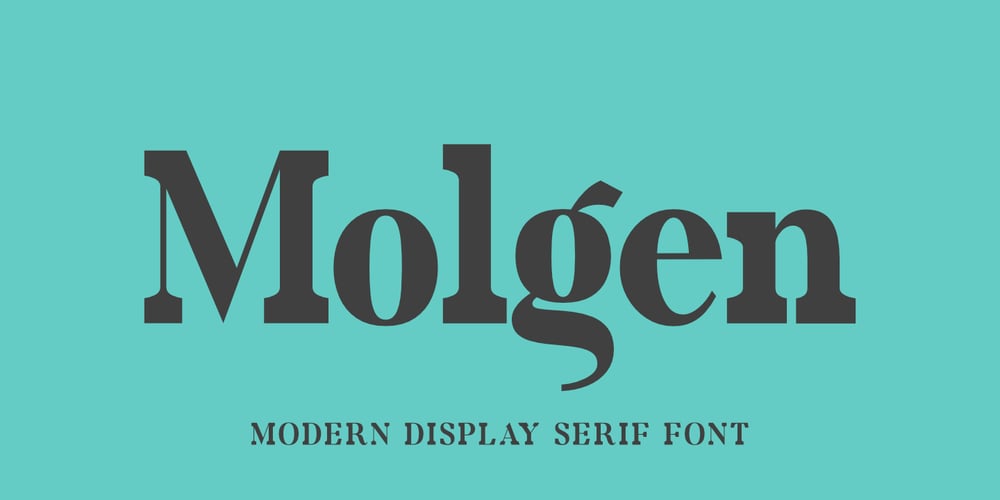
Molgen Font Family was designed by Saiful Anwar and published by Sealoung. Molgen contains 1 styles and family package options. Introducing Molgen Modern Display Serif Font is a distinctive and versatile typeface designed to make a statement. With a unique blend of classic serifs and contemporary display elements, it is a font that encapsulates the perfect balance between tradition and innovation. In the world of typography, Molgen is your gateway to elegance and modernity.Key Features:Serif Meets Display: Molgen is the epitome of a harmonious coexistence between the timeless serif font and the contemporary display style. Its serifs are pronounced yet not overwhelming, making it an ideal choice for a wide range of applications.Versatility: Whether you’re designing a striking logo, crafting eye-catching headlines, or preparing an elegant invitation, Molgen can handle it all with grace and sophistication.Distinctive Characters: Each character in Molgen is meticulously crafted, ensuring that every letter oozes character and charm. From A to Z, you will find unique touches that set Molgen apart.Multilingual Support: Whether your audience speaks English, French, Spanish, or any other language, Molgen has comprehensive multilingual support, ensuring that your message is clear and effective worldwide.